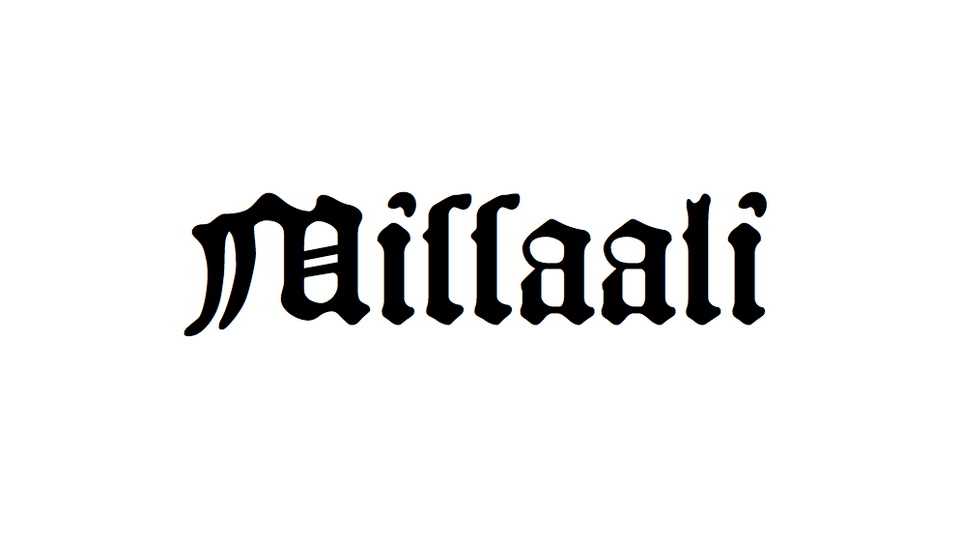
Download Missaali font, a late medieval textura typeface based on Textura that German printer Bartholomew Ghotan used for printing missals and psalters in the 1480s.
Designer: Tommi Syrjänen